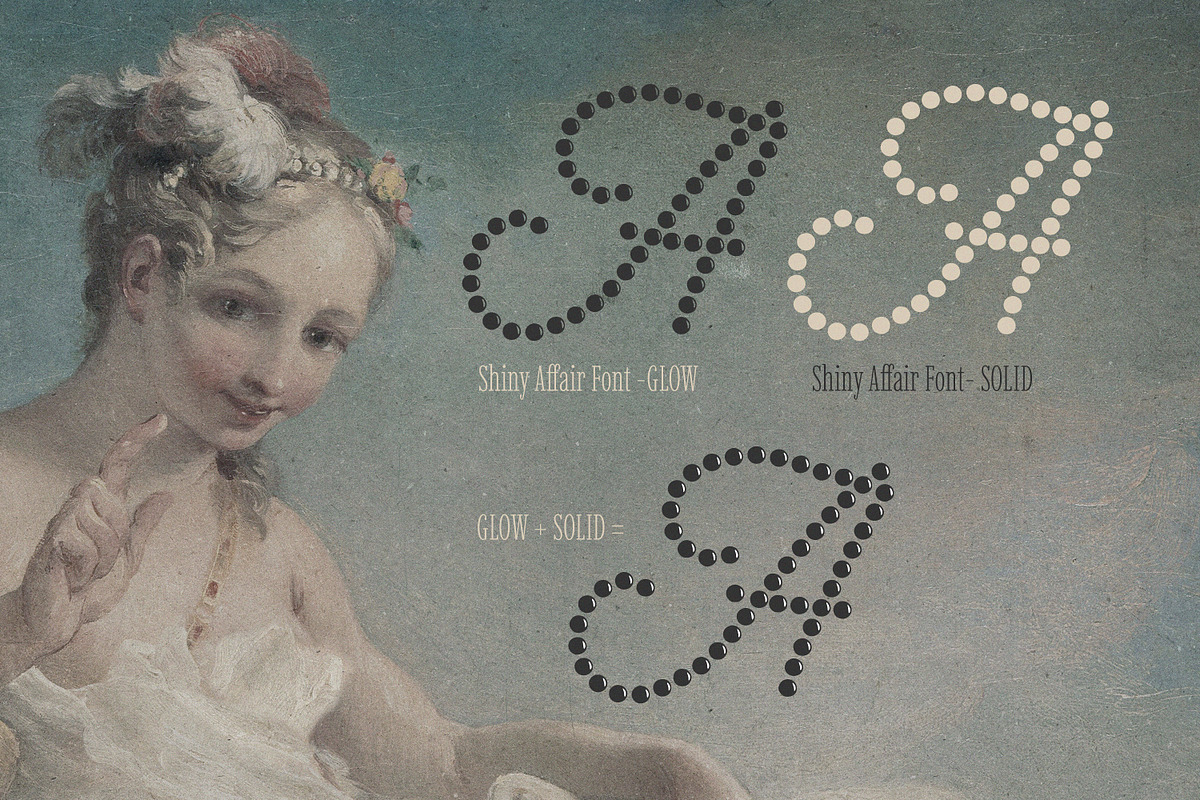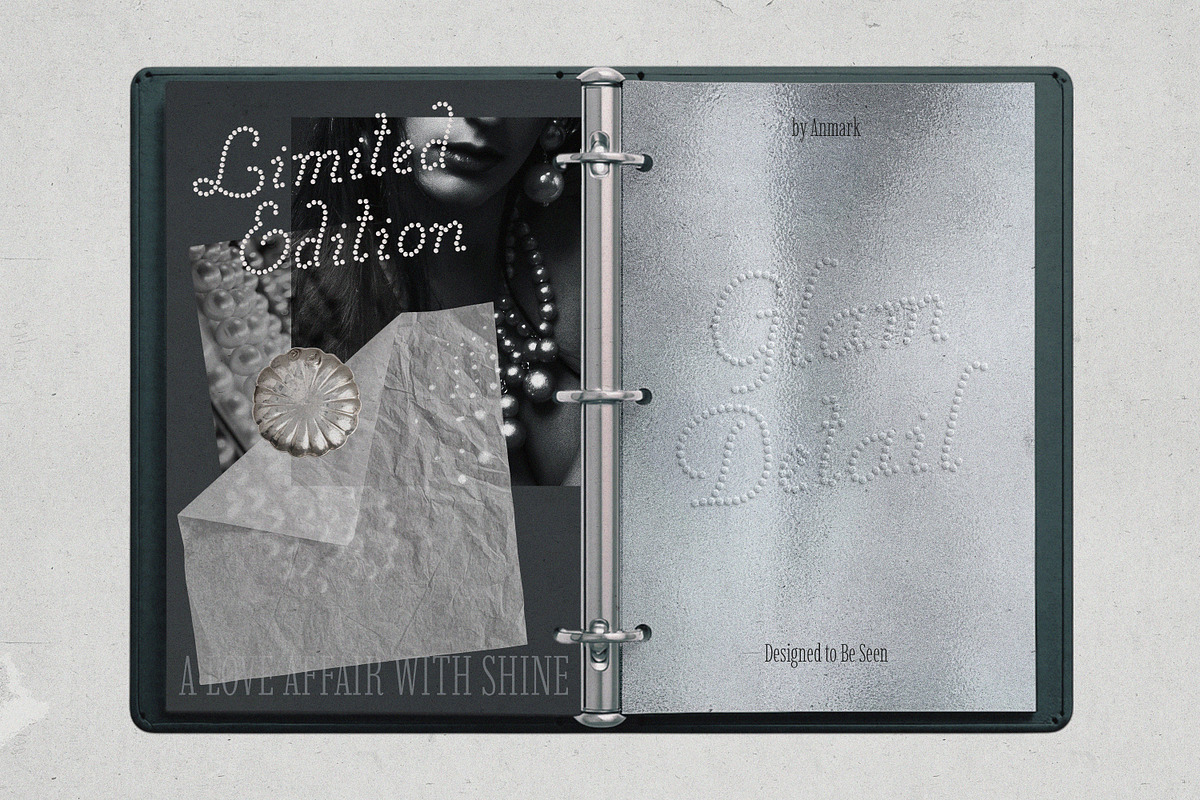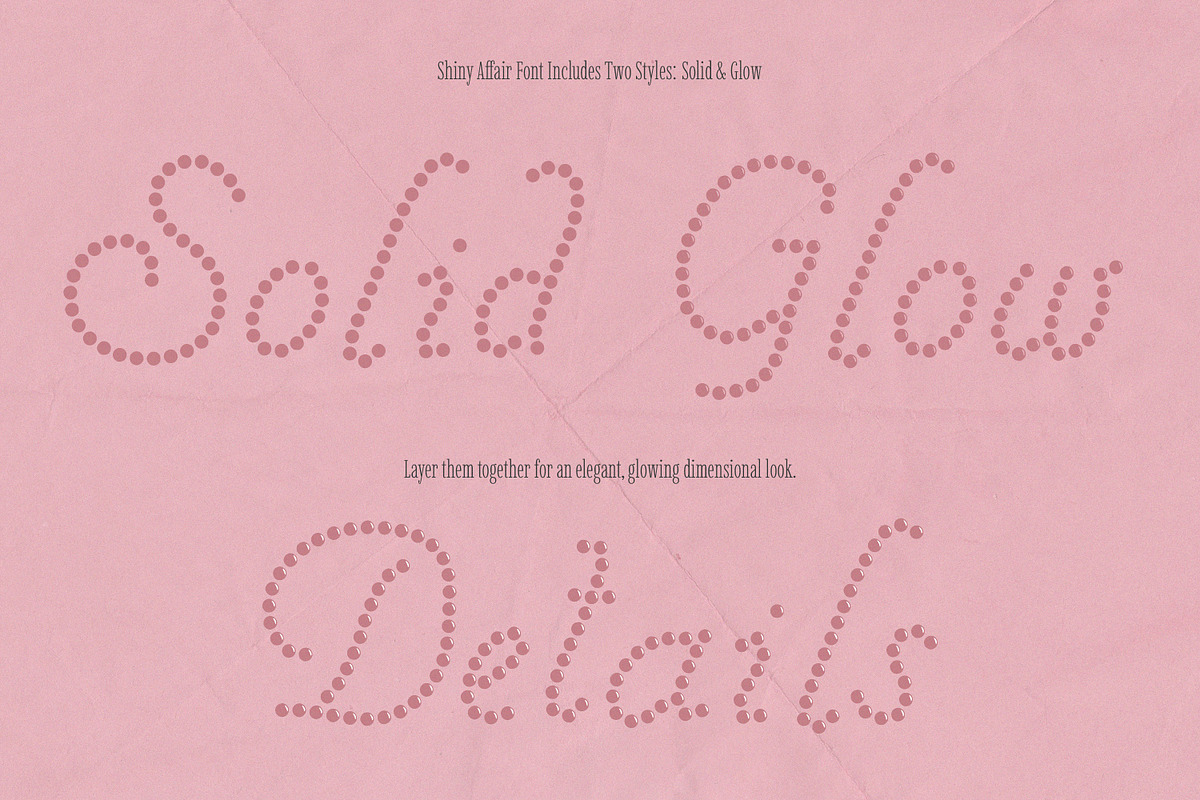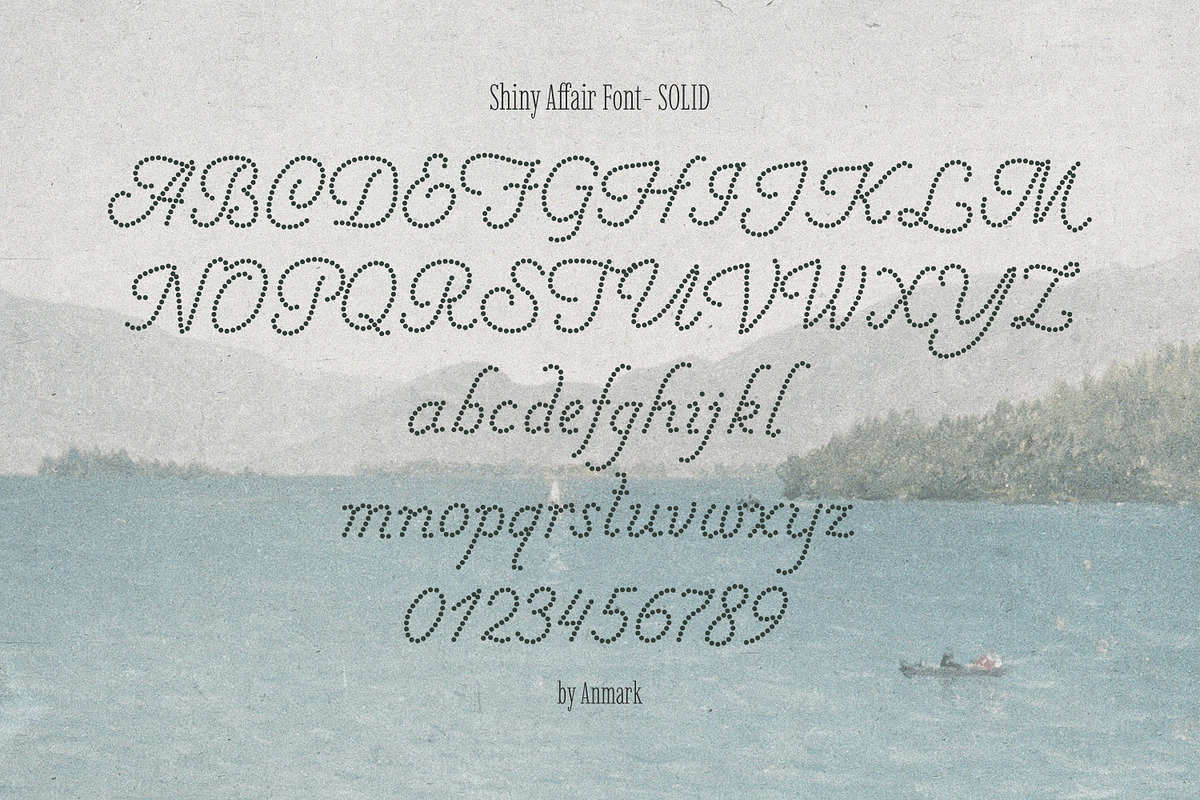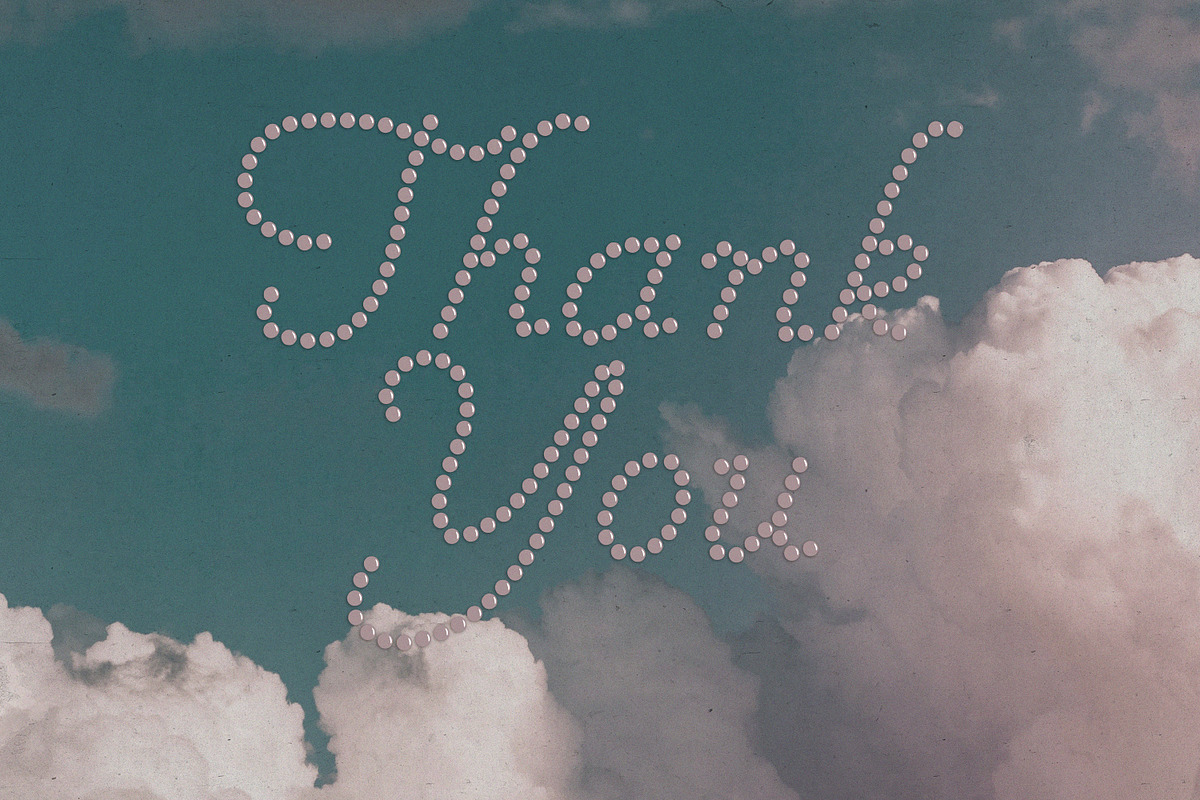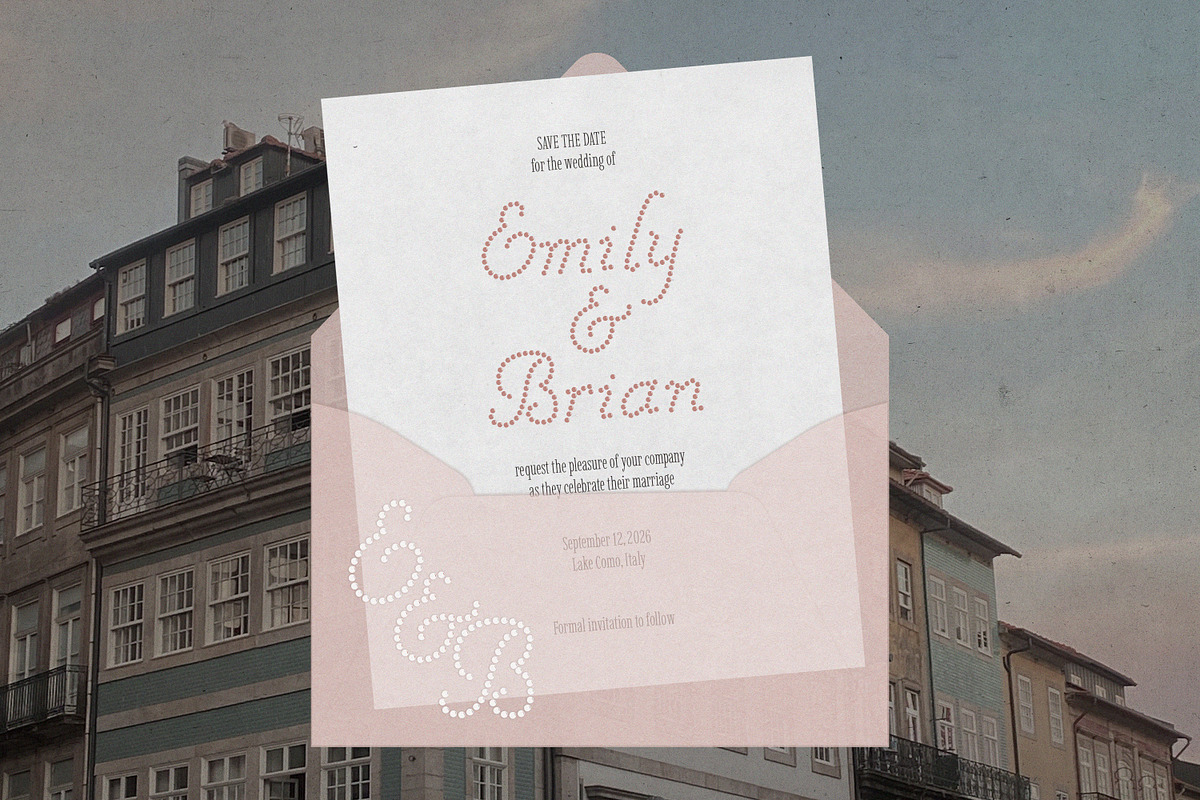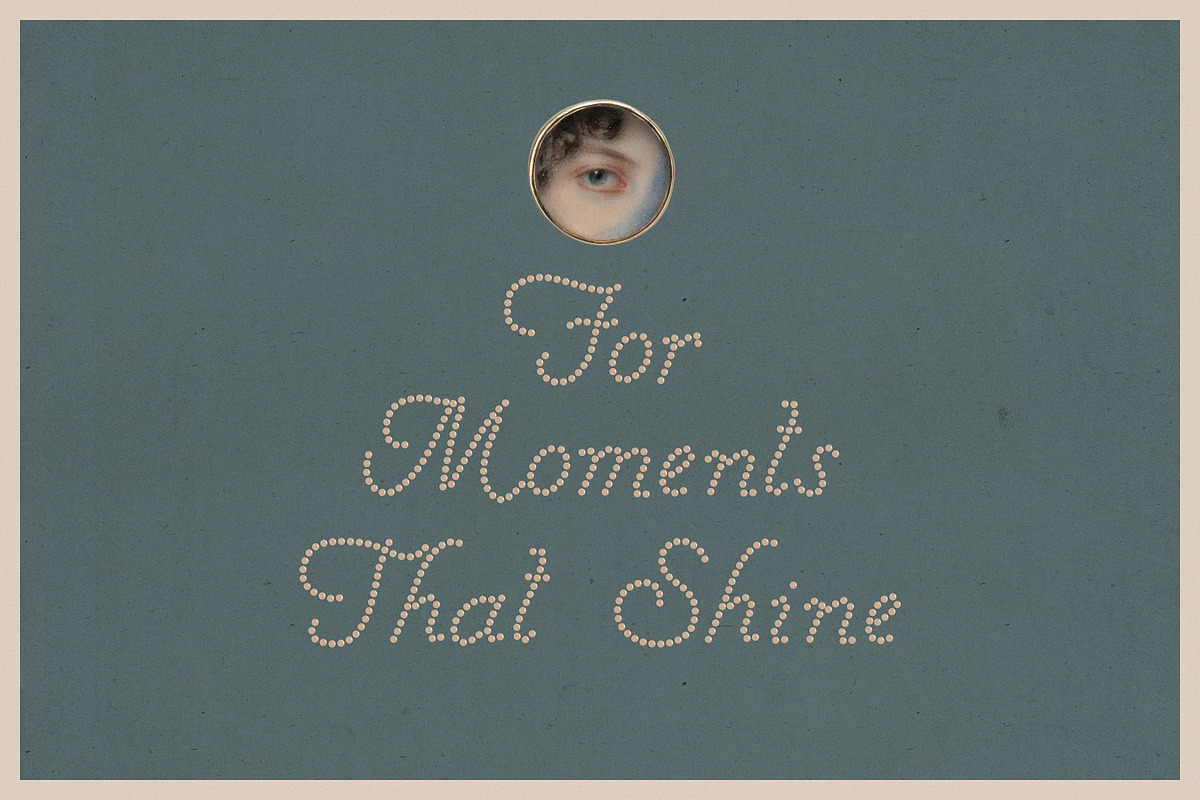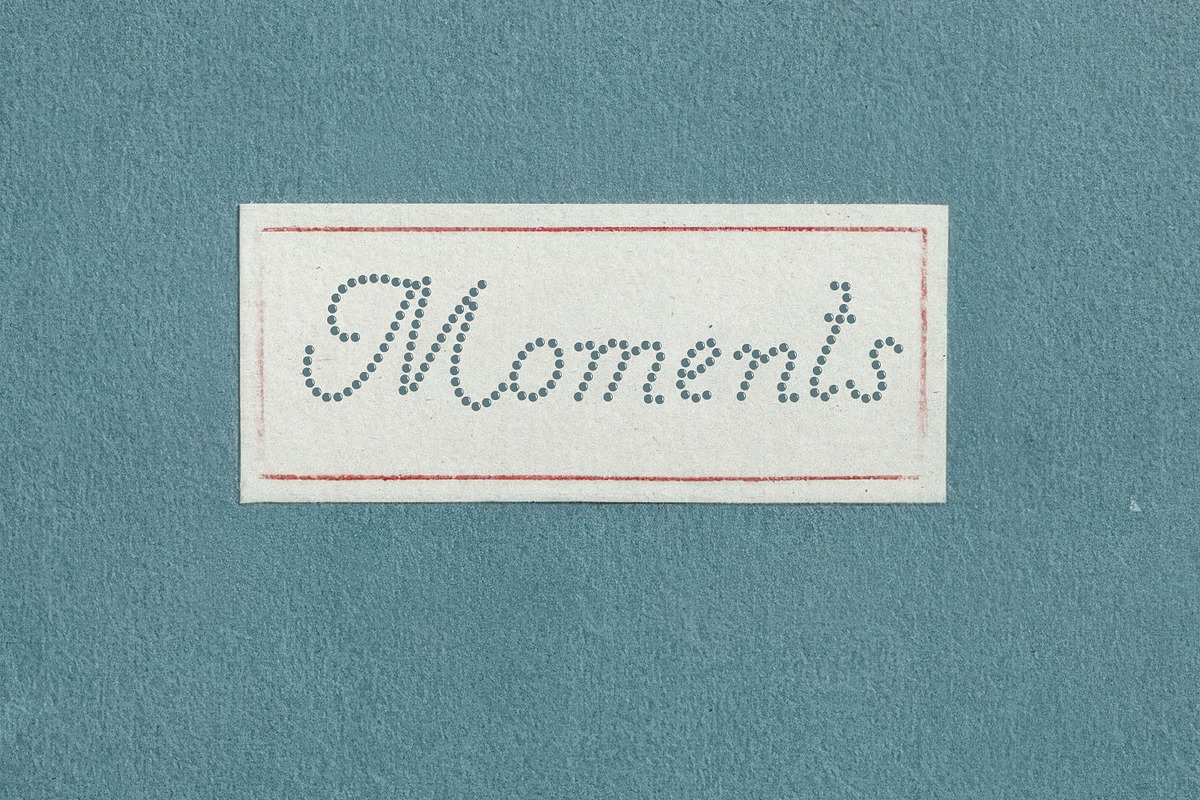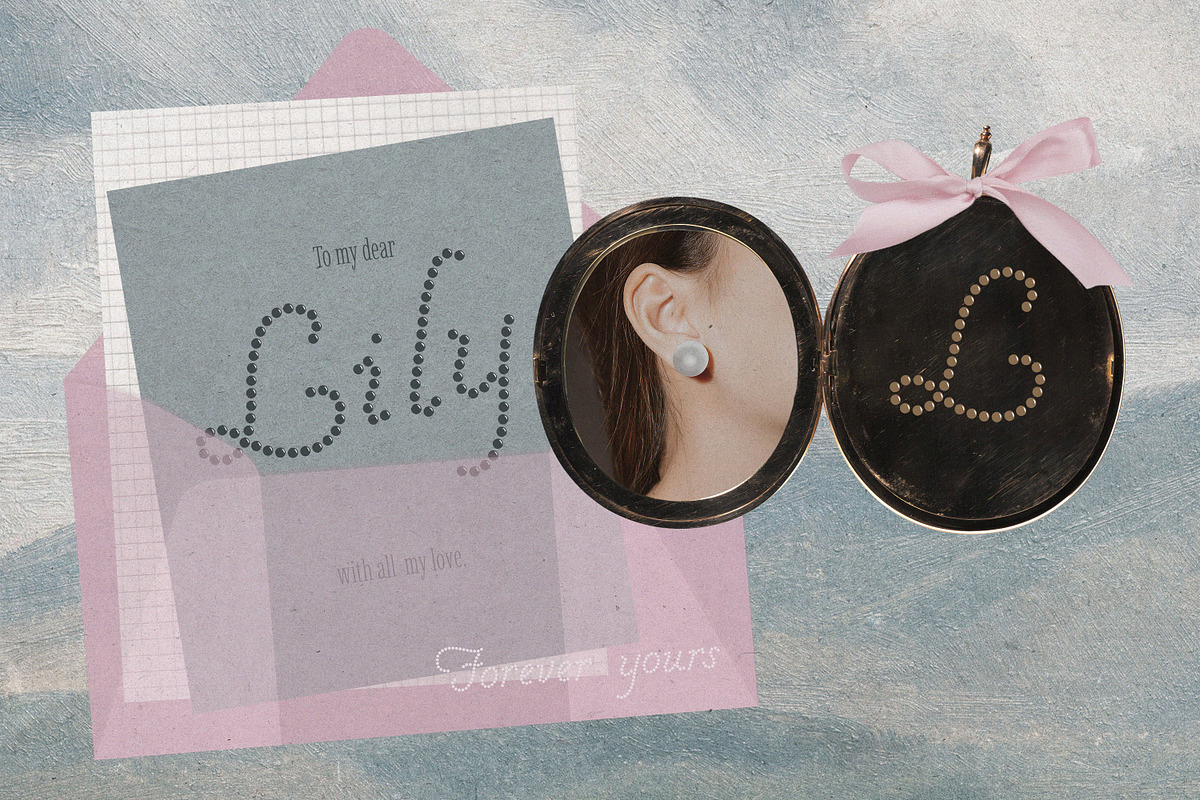
Shiny Affair is a decorative romantic script font DUO with a charming dotted texture inspired by pearls and soft sparkle. Its elegant letterforms feel playful yet refined, bringing a sense of light, warmth, and gentle glamour to every design.
The font includes two styles: Solid and Glow, designed to work beautifully on their own or layered together. When combined, they create a subtle dimensional effect that adds depth and shine, making your lettering feel lively and eye-catching.
Shiny Affair is perfect for wedding designs, monograms, logos, branding, invitations, beauty and fashion projects, and decorative headlines where a touch of romance and sparkle truly matters.